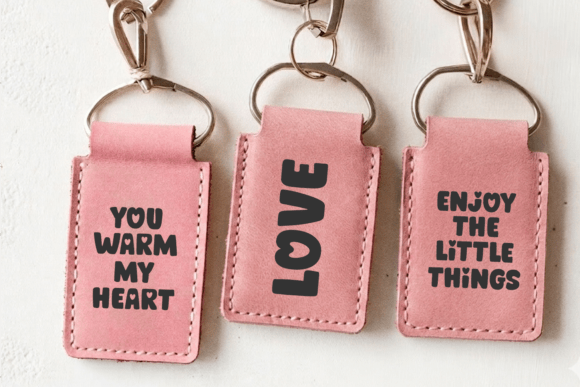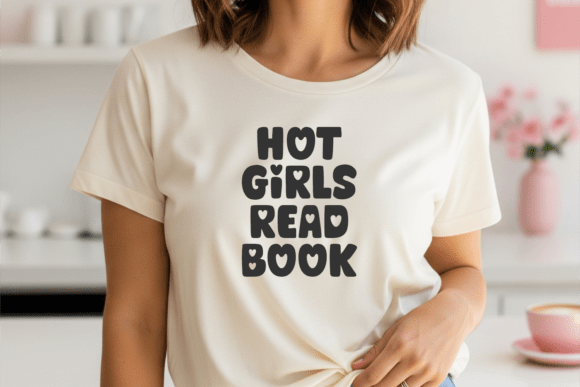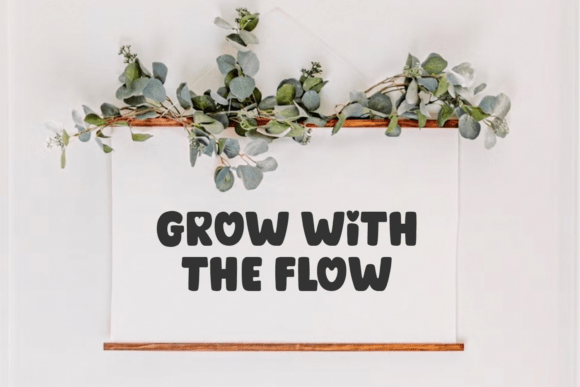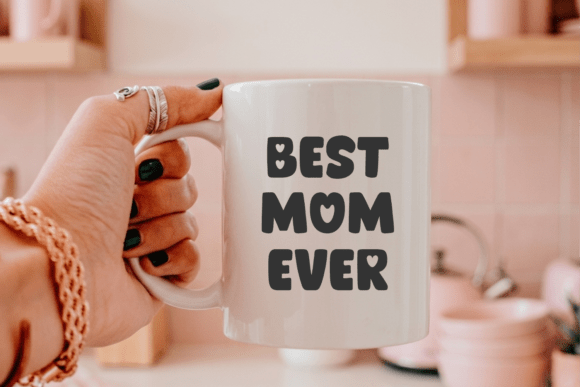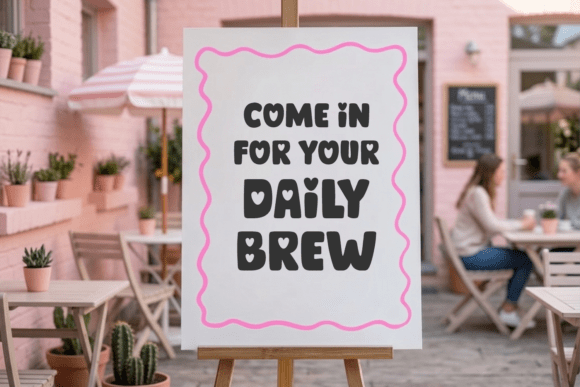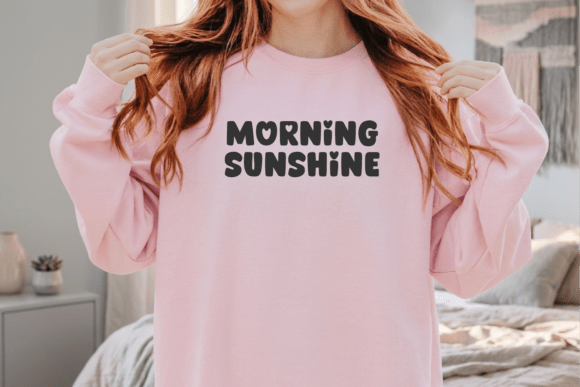
Introducing Bright Days Font: The Perfect Choice for Whimsical and Loving Designs
Are you looking for a font that can add a touch of joy and affection to your projects? Look no further than Bright Days, a charming, bold handwritten font that is sure to bring a smile to your face. With its soft, bubbly curves and adorable heart-shaped cutouts, this typeface perfectly captures a whimsical and loving aesthetic that is perfect for a wide range of design applications.
What Makes Bright Days Font So Special?
Bright Days is more than just a font – it’s a way to add a personalized, friendly feel to your designs. The font’s unique characteristics, such as its soft curves and heart-shaped cutouts, give it a playful and affectionate vibe that is sure to resonate with your audience. Whether you’re crafting DIY projects, custom apparel, or digital graphics, Bright Days radiates positivity and warmth, making it the perfect choice for creators who want to add a little extra something special to their work.
Ideal Use Cases for Bright Days Font
So, what types of projects are best suited for Bright Days font? The answer is: a wide range of creative endeavors! Here are some ideal use cases for this charming font:
- T-shirts, mugs, and tote bags: Add a playful touch to your custom apparel and accessories with Bright Days font. The font’s bold, playful design ensures that your message will stand out and make a lasting impression.
- Stationery craft: Bright Days font is perfect for creating handmade stationery, such as journals, notebooks, and greeting cards. The font’s whimsical design adds a personal touch to your craft projects.
- Greeting cards, invitations, and planners: Make your greeting cards, invitations, and planners more special with Bright Days font. The font’s friendly, approachable design ensures that your message will be well-received by your audience.
- Home Decor and branding project: Use Bright Days font to add a touch of warmth and personality to your home decor and branding projects. The font’s playful design is sure to make your project stand out and leave a lasting impression.
Why Choose Bright Days Font?
So, why should you choose Bright Days font for your next project? Here are just a few reasons:
- Unique and eye-catching design: Bright Days font has a unique, eye-catching design that is sure to grab attention and make your project stand out.
- Playful and affectionate vibe: The font’s playful and affectionate vibe makes it perfect for projects that require a friendly, approachable tone.
- Versatile: Bright Days font is versatile and can be used for a wide range of design applications, from custom apparel to digital graphics.
- Easy to read: Despite its playful design, Bright Days font is easy to read, making it perfect for projects that require a clear and concise message.
Tips for Using Bright Days Font
Here are a few tips for using Bright Days font in your projects:
- Use it with contrasting colors: Bright Days font looks best when paired with contrasting colors. Try pairing it with a bold, bright color to make your text stand out.
- Experiment with different sizes: Bright Days font can be used at a variety of sizes, from large headings to smaller body text. Experiment with different sizes to find the one that works best for your project.
- Pair it with other fonts: Bright Days font can be paired with other fonts to create a unique and eye-catching design. Try pairing it with a clean, sans-serif font for a bold and modern look.
In conclusion, Bright Days font is a charming, bold handwritten font that is perfect for adding a touch of joy and affection to your projects. With its soft, bubbly curves and adorable heart-shaped cutouts, this typeface perfectly captures a whimsical and loving aesthetic that is sure to resonate with your audience. Whether you’re crafting DIY projects, custom apparel, or digital graphics, Bright Days font is the ideal choice for creators who want to add a personalized, friendly feel to their designs.